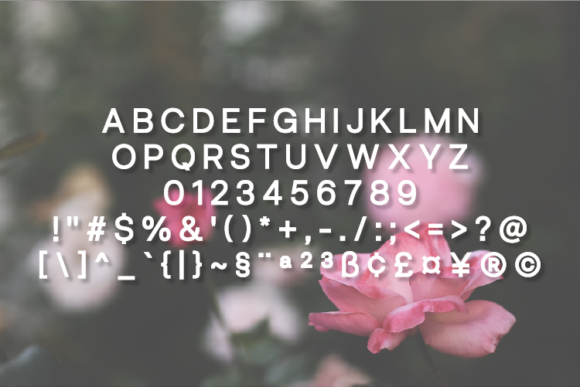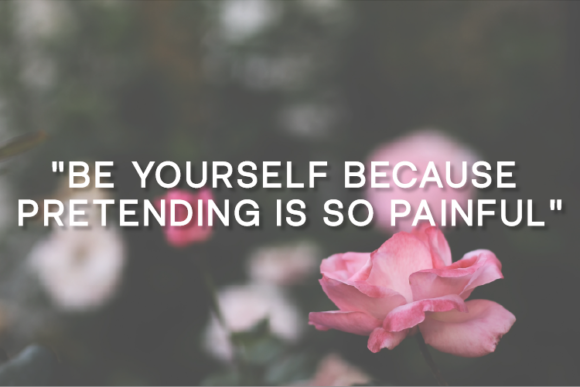
Introduction to Heymour Font
As a designer, have you ever found yourself stuck in a creative rut, staring at a blank canvas or a blank page, trying to bring your vision to life? You’ve got a great idea, but it’s just missing that one crucial element to make it truly stand out. That’s where the perfect design resource comes in – a font that not only complements your project but elevates it to the next level. For many designers, that perfect font is the Heymour Font.
With its minimal and neat sans serif design, the Heymour Font is a versatile choice that can be easily matched to an incredibly large set of projects. Whether you’re working on a branding project, a website, or a social media campaign, this high-quality font is sure to make your creative project shine. And the best part? It’s available for free download, making it an accessible and valuable resource for designers of all levels.
So why is the Heymour Font so valuable for designers? For one, its transparent background allows for seamless integration into any design, while its clean and modern aesthetic makes it perfect for a wide range of creative projects. Whether you’re a seasoned pro or just starting out, the Heymour Font is a design resource that’s sure to become a go-to favorite.
Key Features of Heymour Font
- Unique, modern design suitable for various applications, including branding and typography
- Supports a wide range of languages, making it a versatile design resource
Honest Review: Heymour Font
As a designer, I’m always on the lookout for new design resources to elevate my creative projects. Recently, I had the chance to try out the Heymour Font, and I’m excited to share my honest review.
Here’s what I like about Heymour Font:
- ✨ High-quality design that’s perfect for creating engaging headlines and titles
- ✨ Transparent background option allows for easy customization and versatility
- ✨ Great for digital projects, including websites, social media, and mobile apps
- ⚠️ Limited character set, which might be a drawback for designers who need a wide range of characters
- ⚠️ Some users might find the font a bit too playful or whimsical for certain projects
Overall, I’m impressed with the Heymour Font’s high-quality design and versatility. While it may not be perfect for every project, it’s definitely a valuable addition to any designer’s toolkit. And the best part? It’s available for a free download, making it an excellent resource for designers on a budget.
Tips for Getting the Most Out of Heymour Font
Use the font in conjunction with a transparent background to create a sleek and modern look. Experiment with different font sizes and styles to add visual interest to your design.